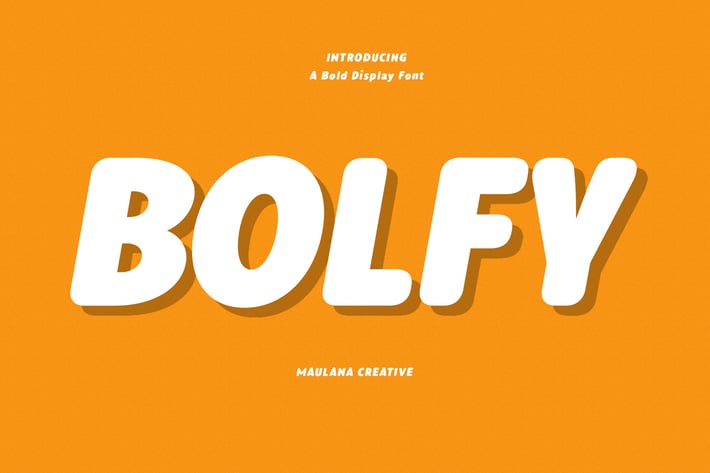
Bolfy Handwritten Display Font
Bolfy is a casual marker clean handwritten sans font. With medium low contrast stroke, fun character with a bit of ligatures and alternates. To give you an extra creative work. Bolfy font support multilingual more than 100+ language. This font is good for logo design, Social media, Movie Titles, Books Titles, a short text even a long text letter and good for your secondary text font with script or serif. Make a stunning work with Bolfy font.